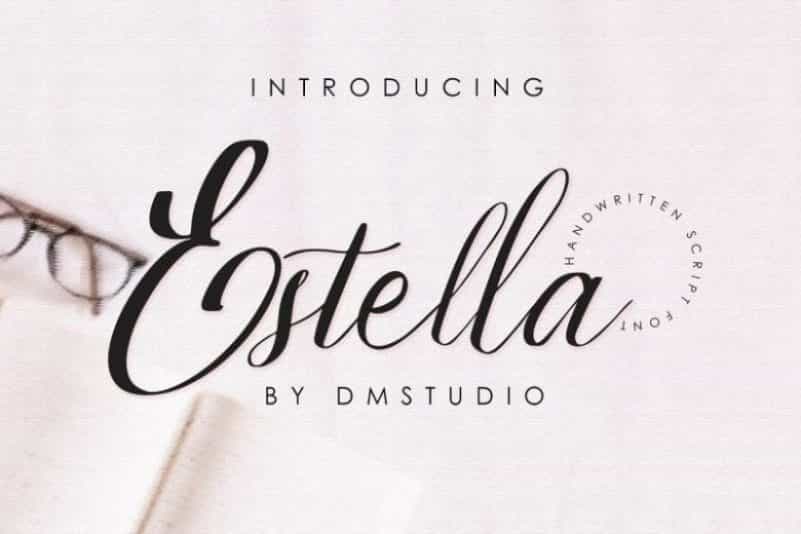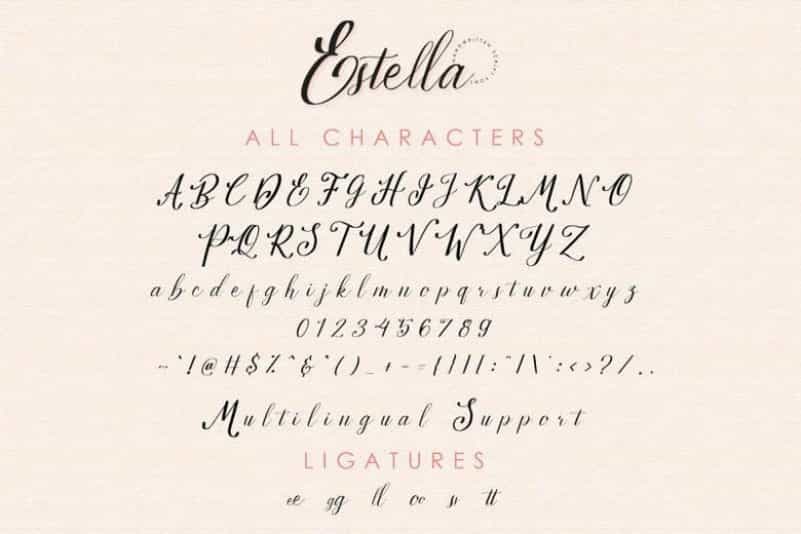
Introducing! The New Calligraphy Script Font. Estella Font! This font is especially created for those who need a special touch of elegance or the design of your next projects to produce perfect and amazing results. Estella is a typeface script with personality.